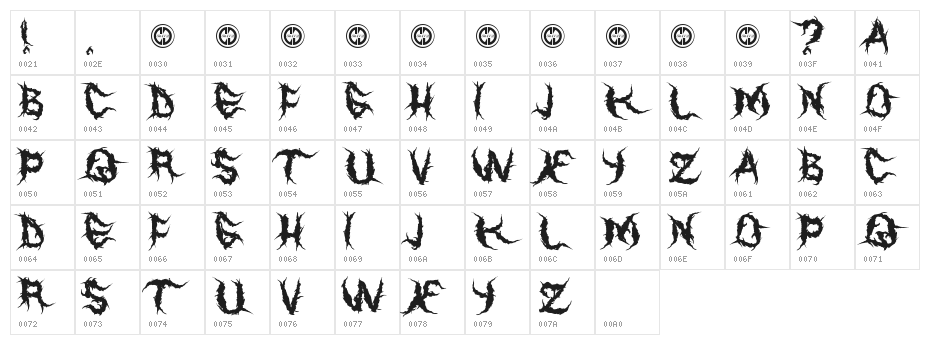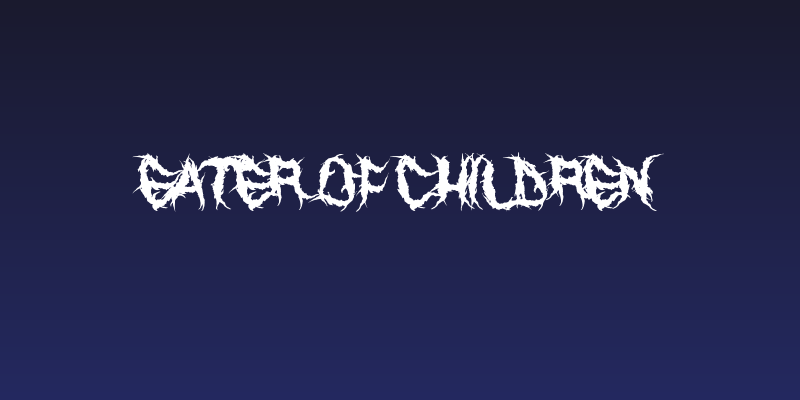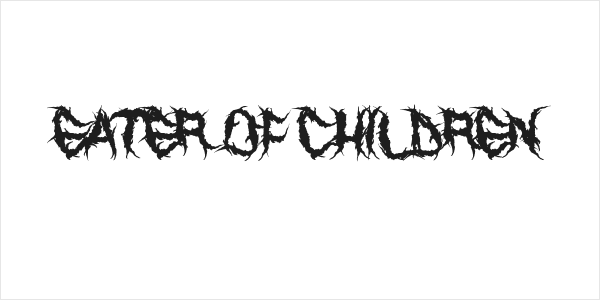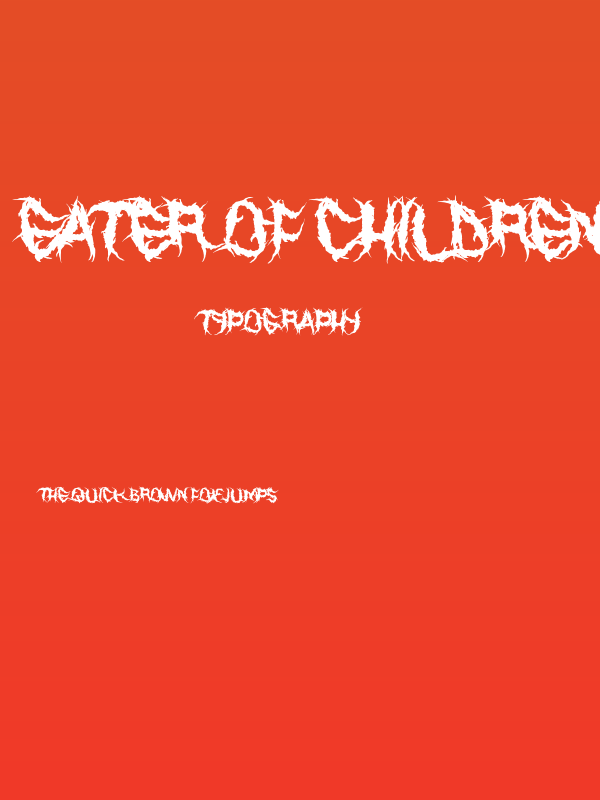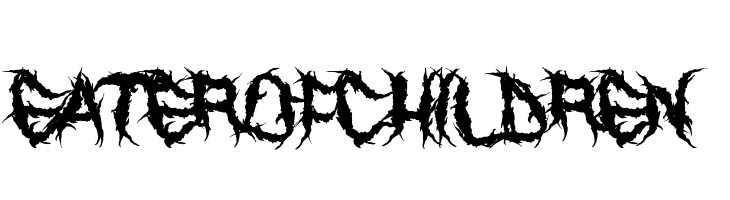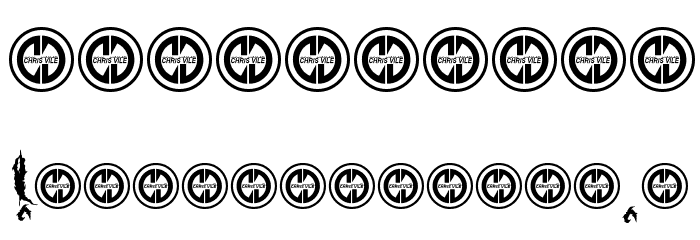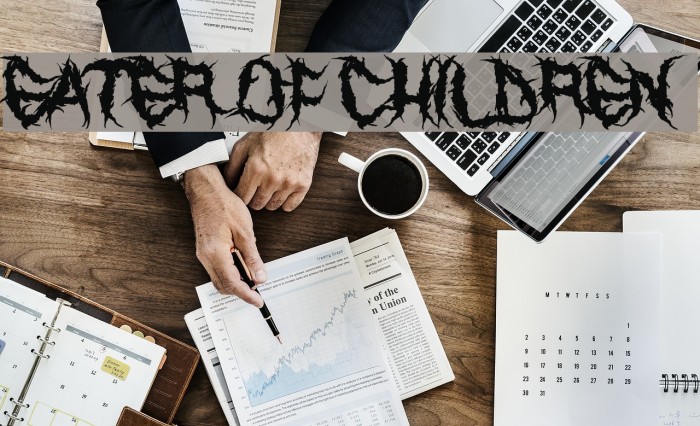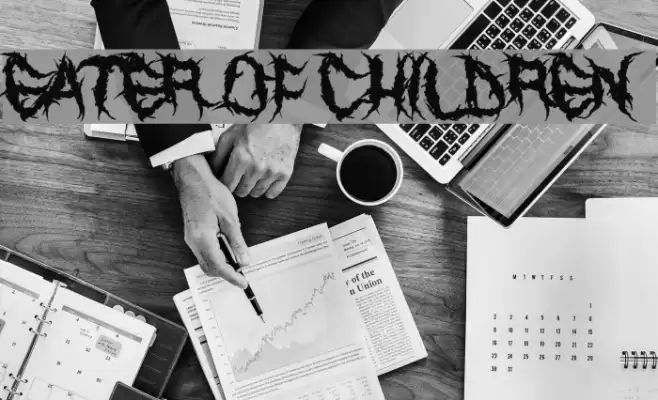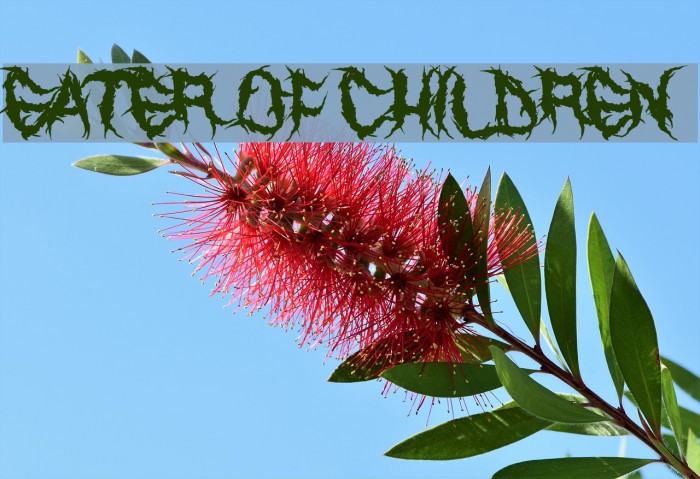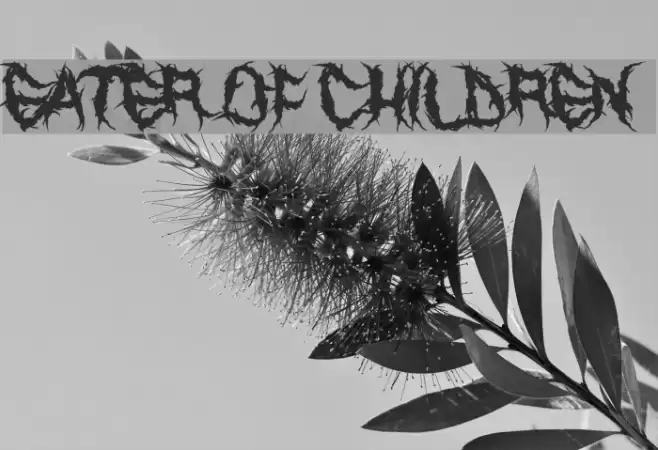
Eater of Children Font
Eater of Children Description
This font features a highly decorative and aggressive style, characterized by sharp, thorn-like extensions protruding from each letter. The uppercase and lowercase letters maintain a consistent jagged appearance, creating a sense of chaos and intensity. The font's unique design is reminiscent of horror or metal music themes, making it stand out with its bold and edgy look. The characters are densely packed, with minimal spacing, enhancing the dramatic effect. The overall aesthetic is dark and impactful, suitable for projects that require a strong visual statement.
| Use Case | Logos, Posters, Themed Events |
| Proposed Projects | Ideal for horror-themed posters, metal band logos, Halloween invitations, and edgy graphic designs. |